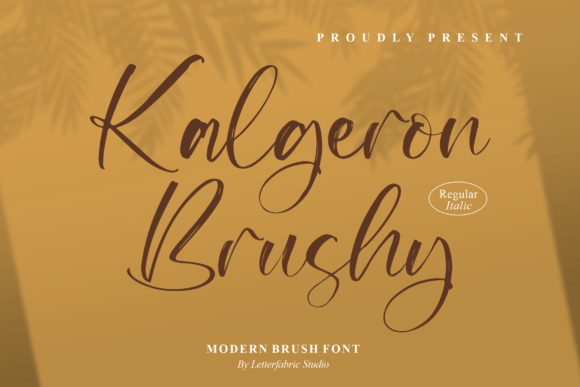
Step into the world of Kalgeron Brushy Font, an inspiring handwritten script that mirrors the charm of a marker board. This captivating font exudes a raw, spontaneous energy, making it the perfect choice for those seeking to inject a touch of authenticity and warmth into their visual communications.
Soar high with Kalgeron Brushy Font and let your creativity flourish. Its free-flowing curves and playful charm will transform your designs into captivating masterpieces, sure to allure and engage your target audience. Whether you're crafting heartfelt greeting cards, extending invitations brimming with personality, or seeking the ideal font to uplift and motivate, Kalgeron Brushy Font stands ready to elevate your artistic vision.
Effortlessly express the depth of your messages with Kalgeron Brushy Font, a treasure trove of emotions waiting to be unveiled. Employ it to design enchanting posters that resonate with your audience, create website banners that entice and engage, or craft social media graphics that capture attention and inspire action. The possibilities are infinite, awaiting your imagination to ignite and bring them to life.
Embark on a typographic adventure with Kalgeron Brushy Font and unleash your creativity. With its PUA encoding, a world of glyphs and ligatures awaits your exploration, allowing you to add intricate details and flourishes that elevate your designs to new heights. Effortlessly incorporate Kalgeron Brushy Font into your projects and witness the transformative power it wields, captivating your audience and leaving a lasting impression.